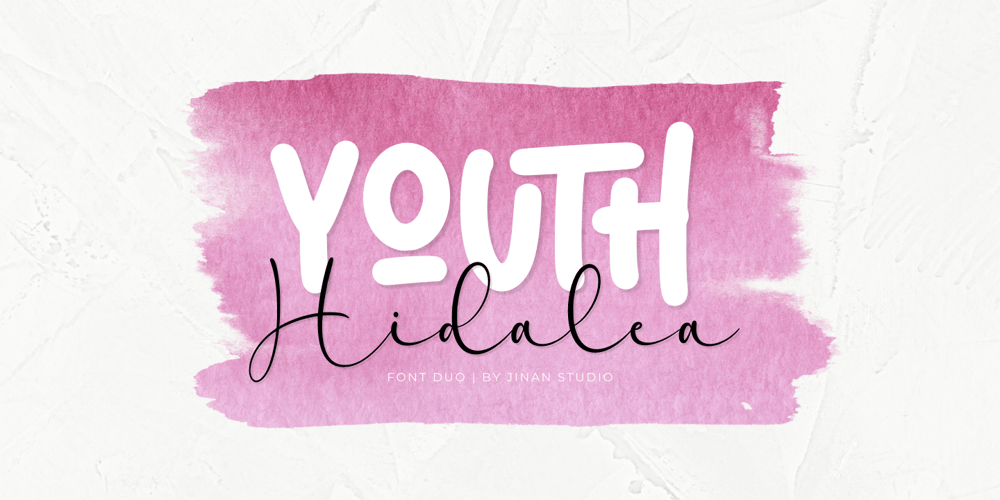
Youth Hidalea Font Family was designed by Ainun Jinan and published by Jinan Studio. Youth Hidalea contains 2 styles and family package options. Youth Hidalea! is a fantastic font duo (sans serif & script), offering a modernity, playful, and artistic flair. Suitable for your design project needs, such as; logotype, wedding, packaging, social media posts, quotes, overlays on images, posters, and more.Features Uppercase and lowercase glyphs Number, symbol, punctuation, and multilingual support Some alternates and ligatures Thank you for buying and using this font for your projects. Enjoy this font and happy creating!Jinan Studio